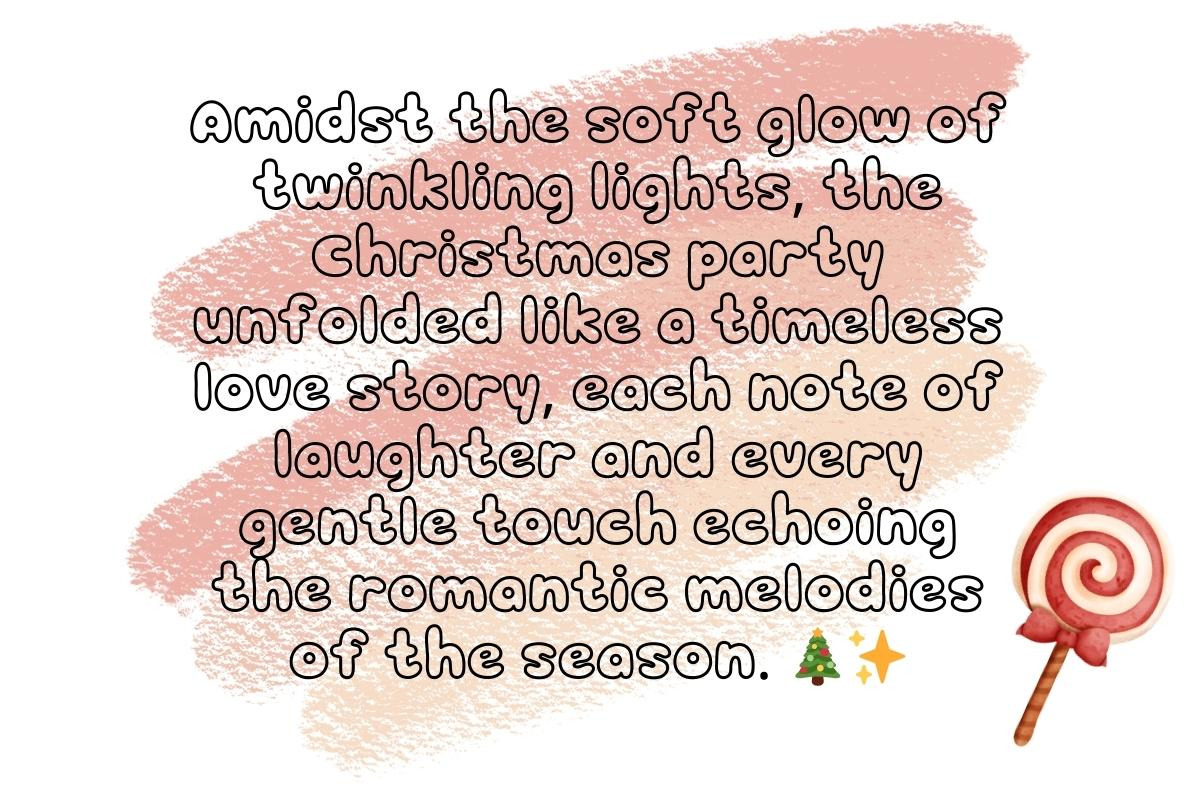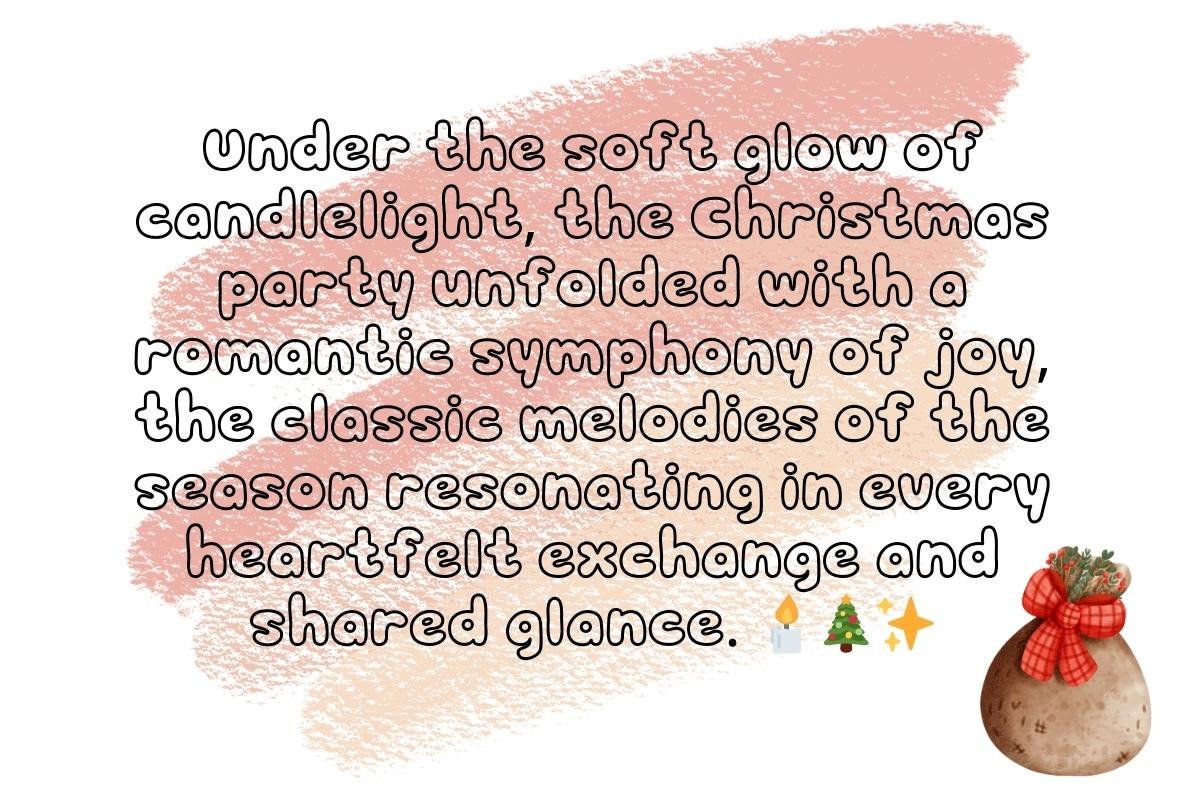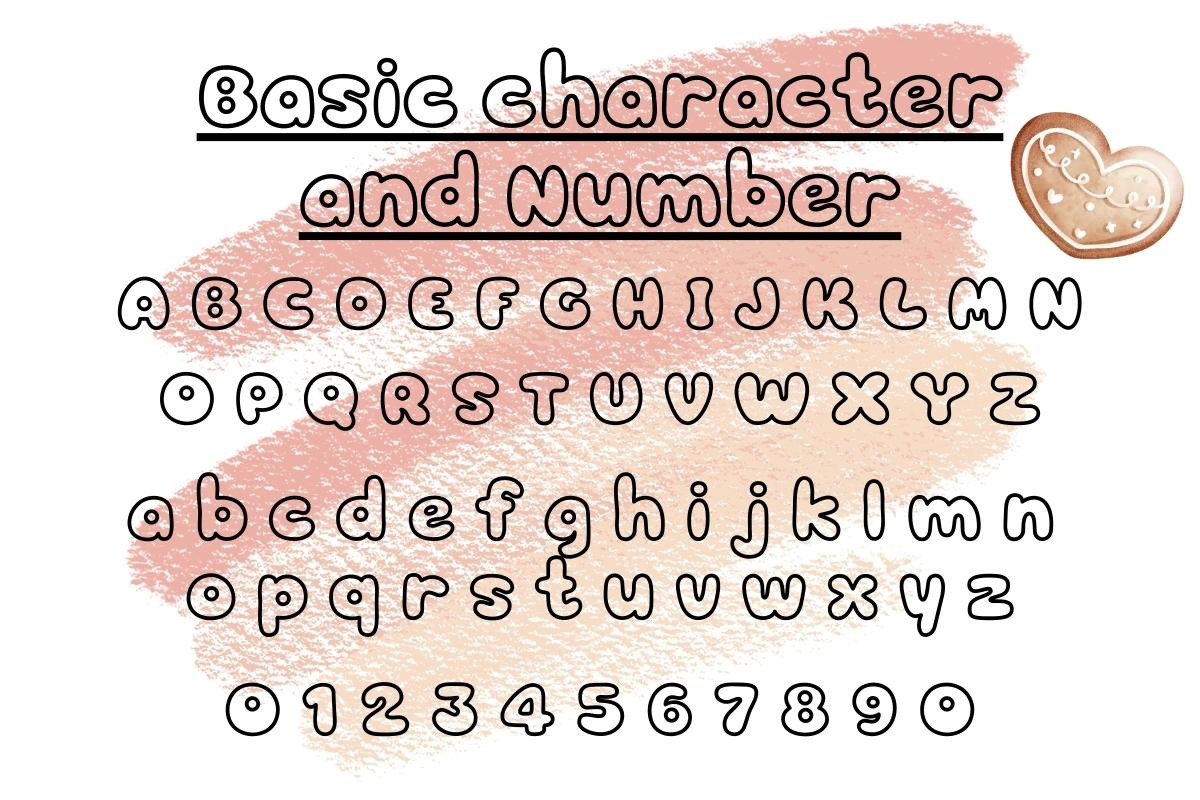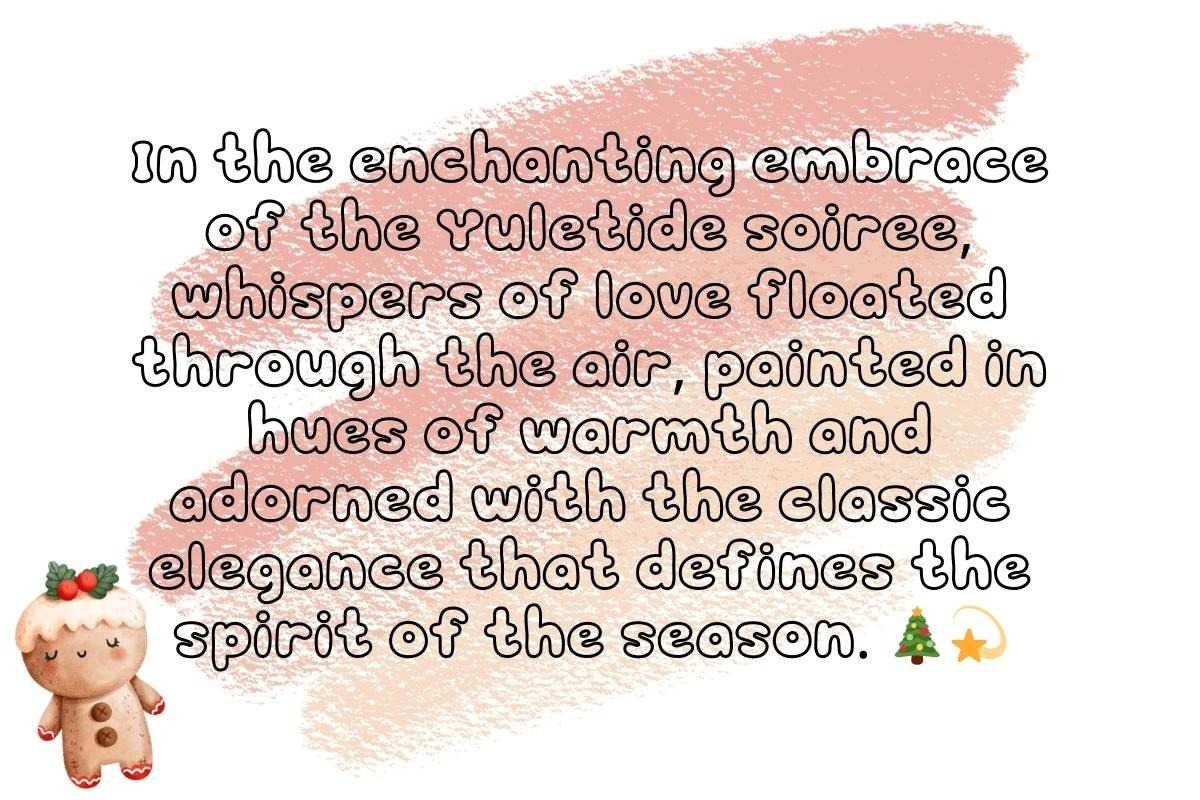
Christmas Party - Handwritting
Indulge in the festive flair of "Christmas Party," a captivating script font that seamlessly blends the charm of handwritten elegance with the versatility of a display font. Infuse your designs with the holiday spirit as this unique typeface adds a touch of warmth and character to every project. Elevate your creativity with "Christmas Party" and let the joy of the season unfold in every stroke and curve. Unleash the magic of this script font and transform your text into a celebration of style.